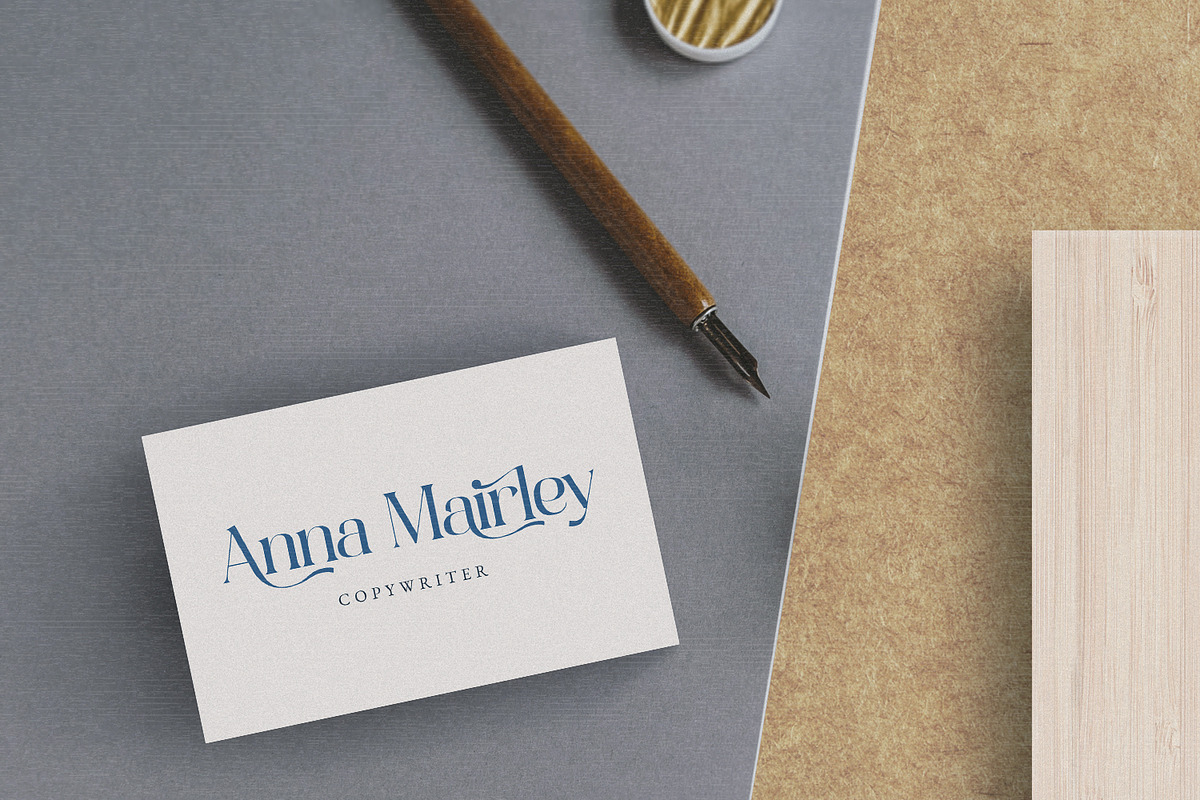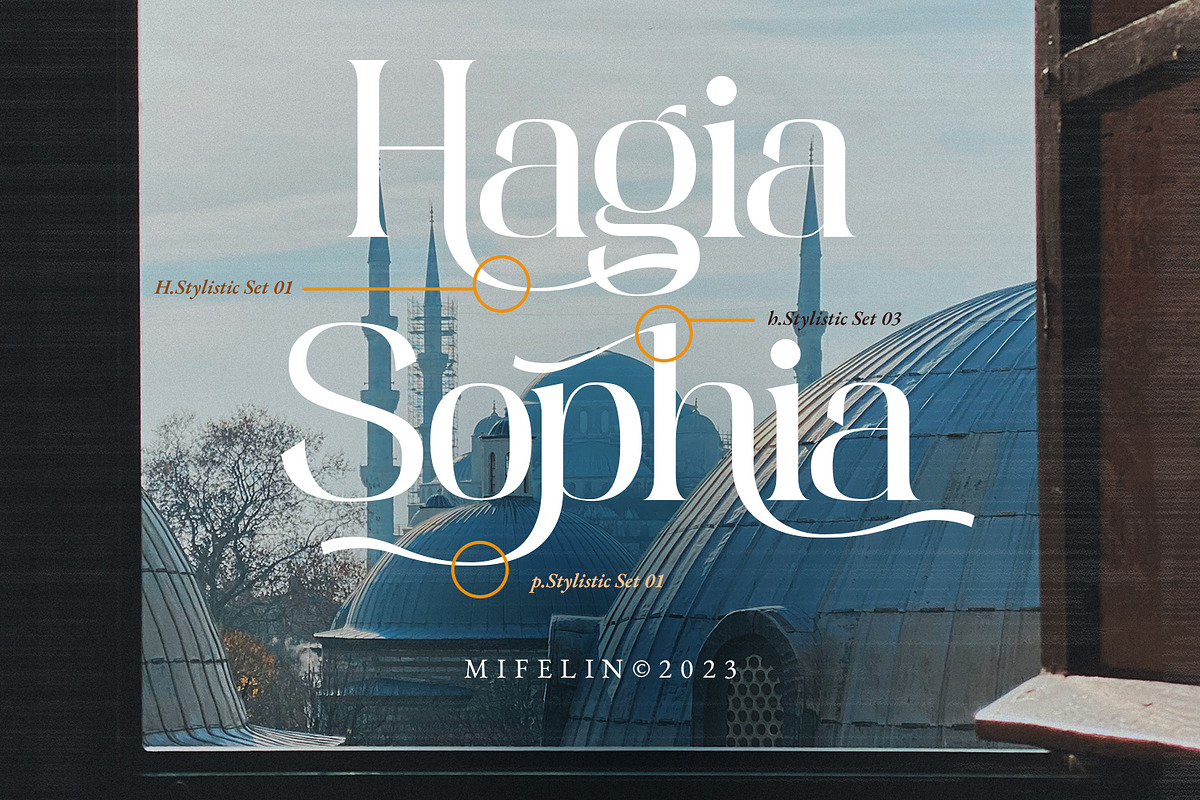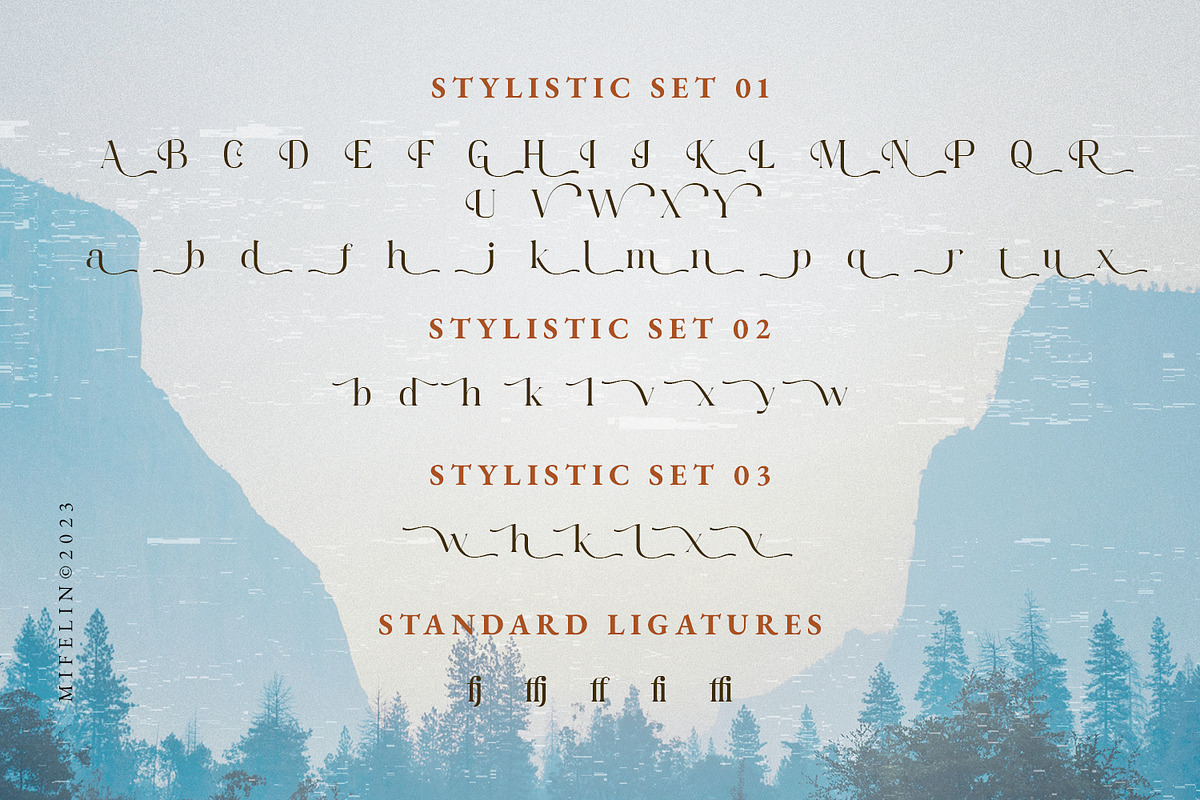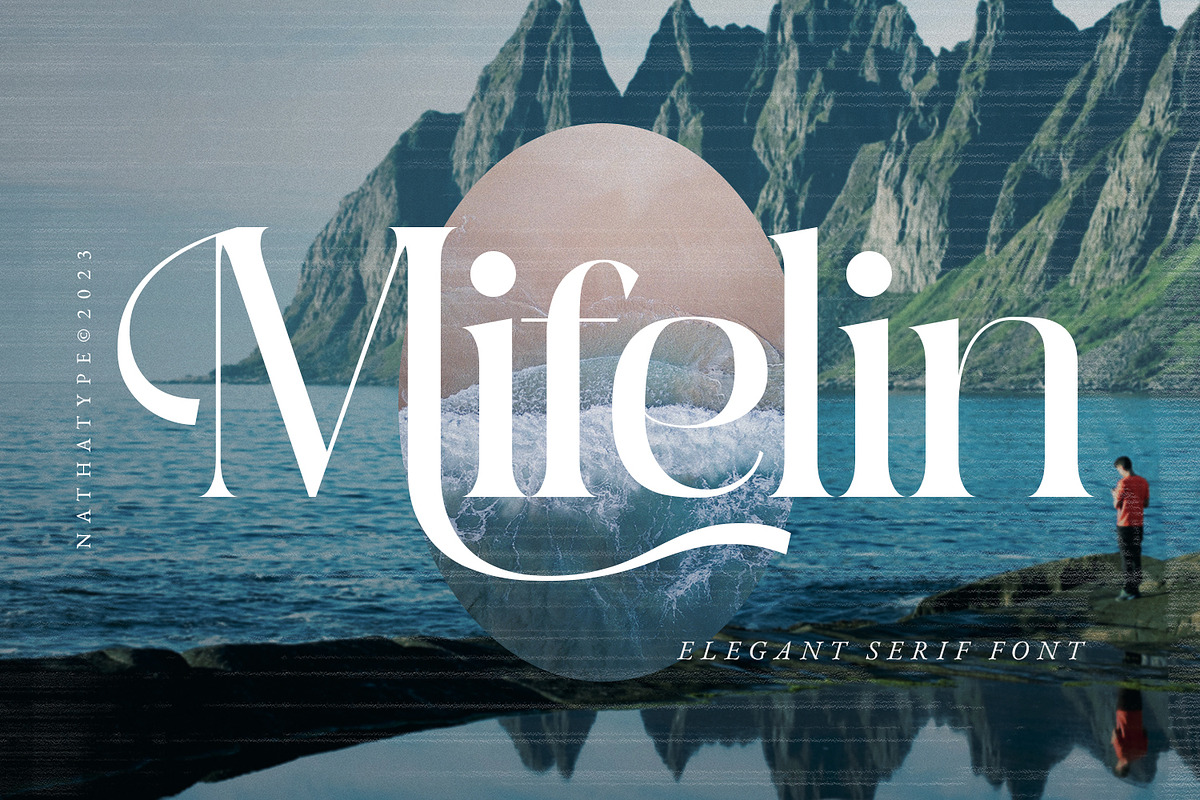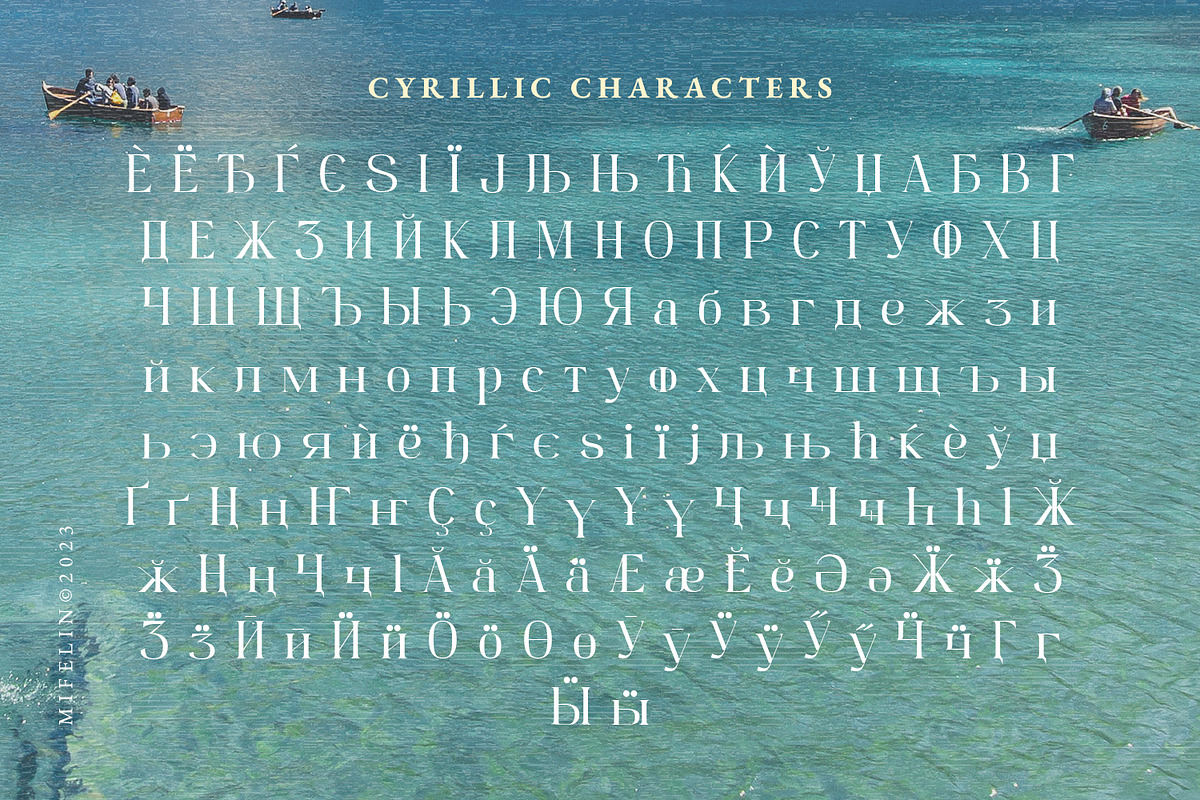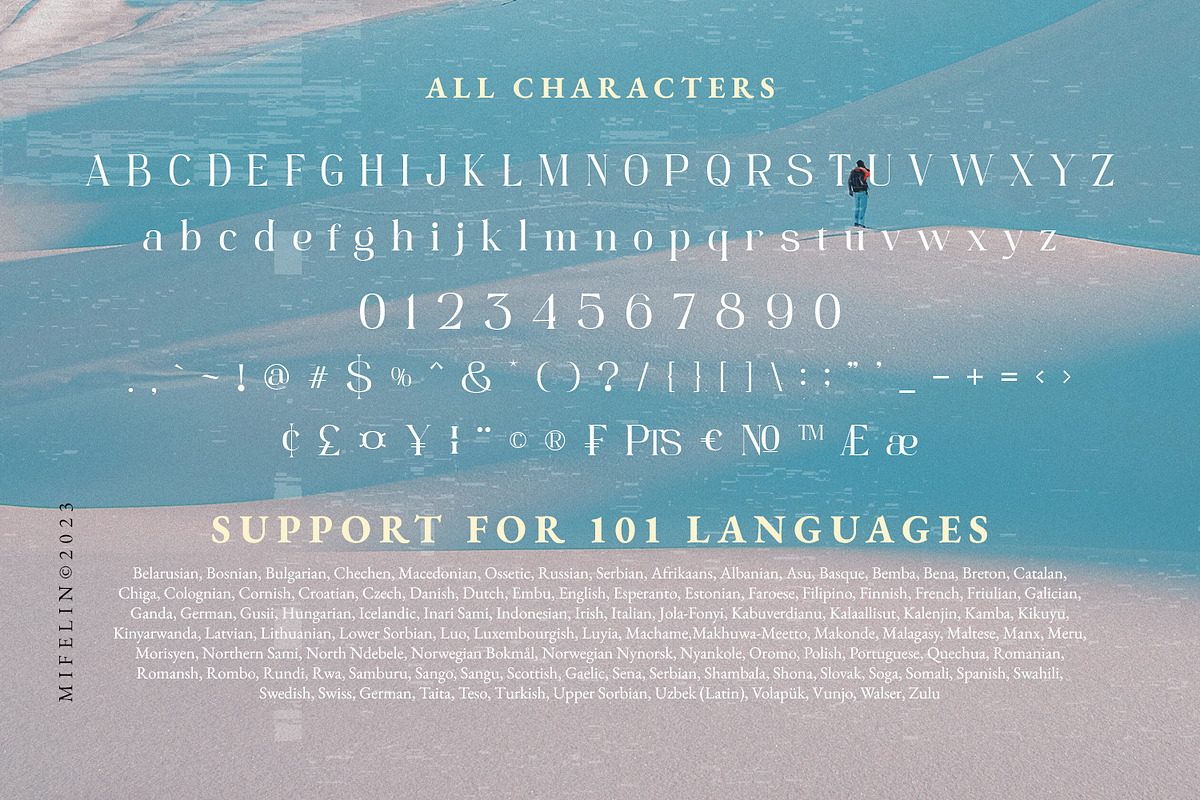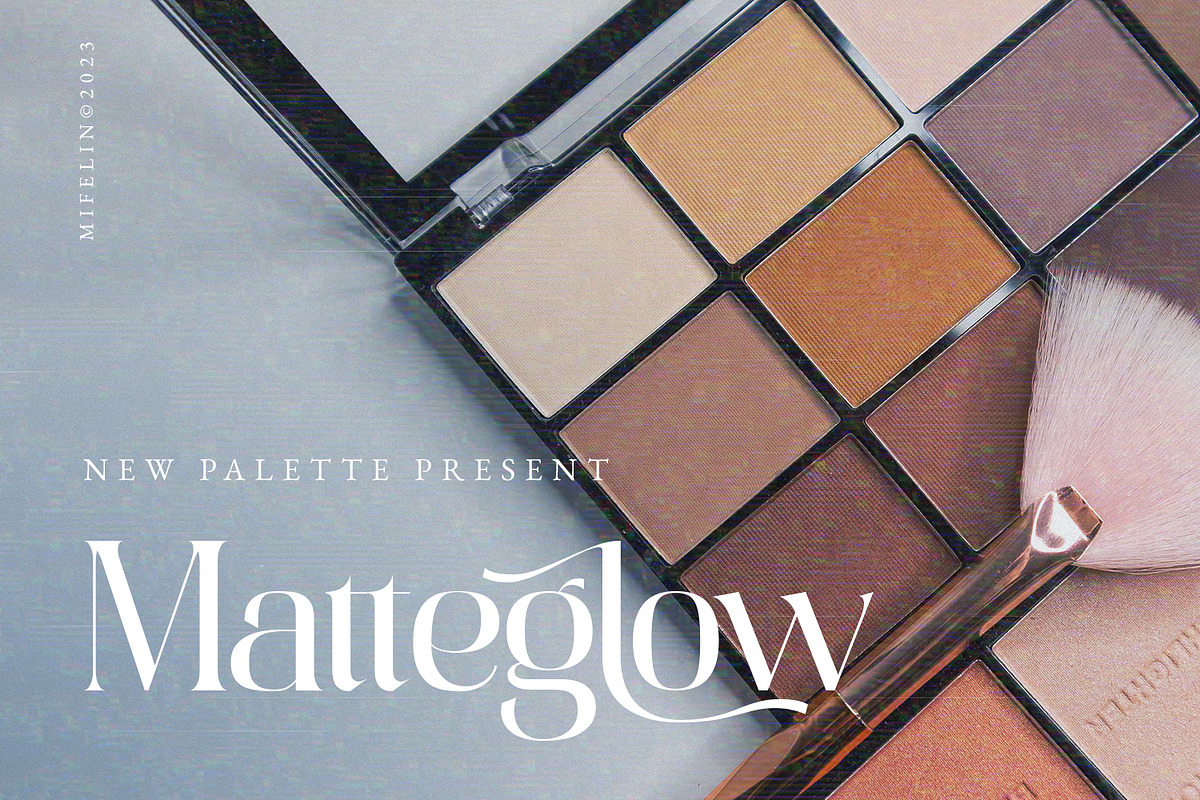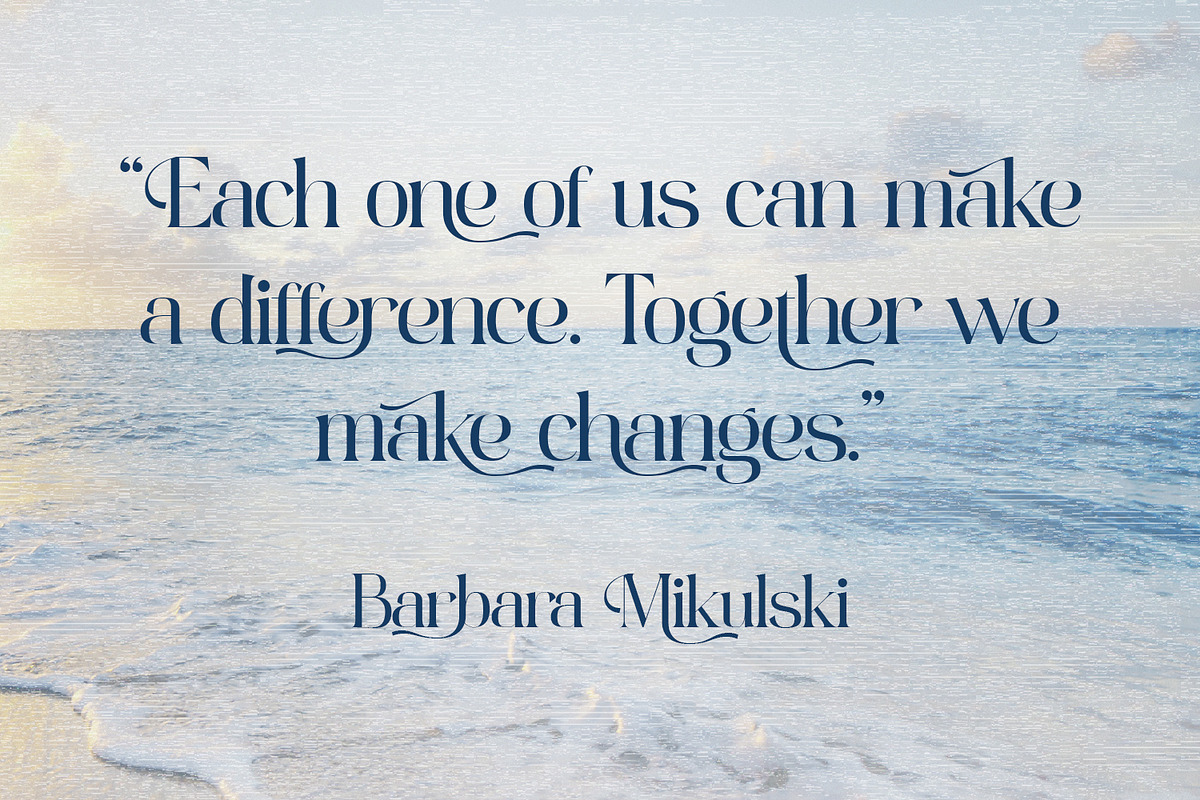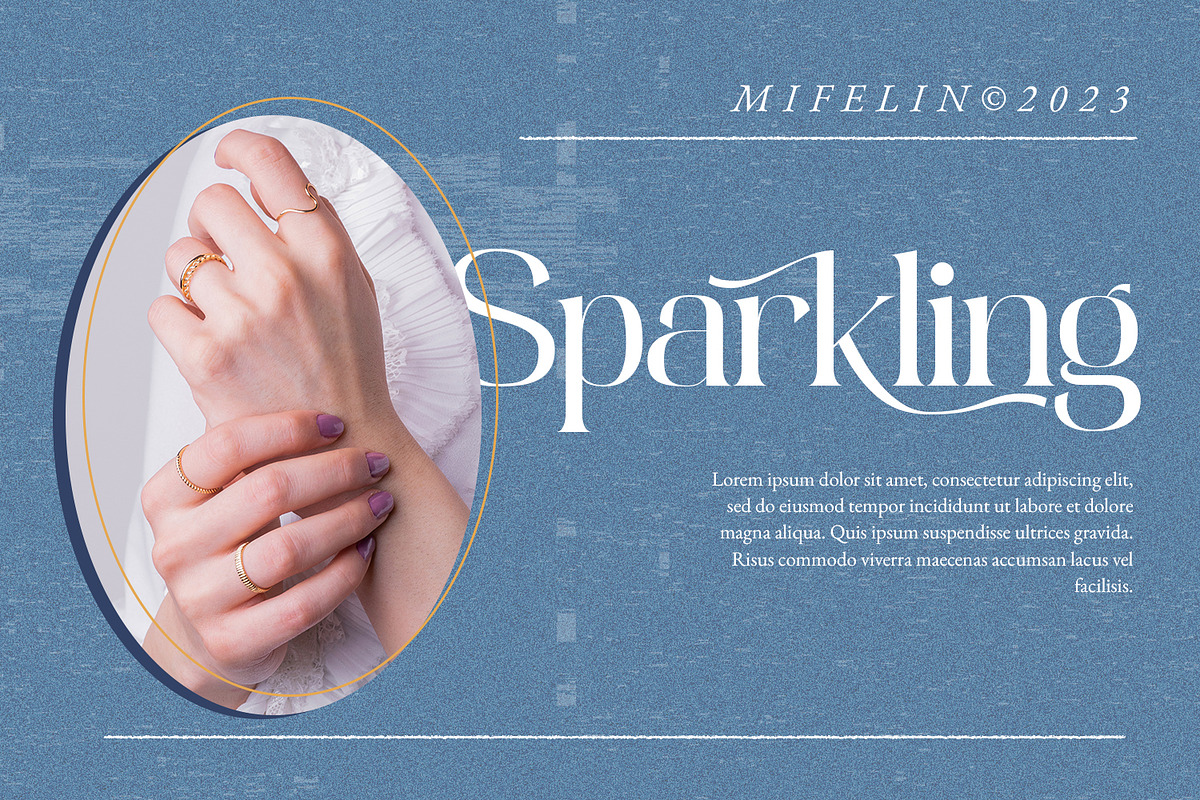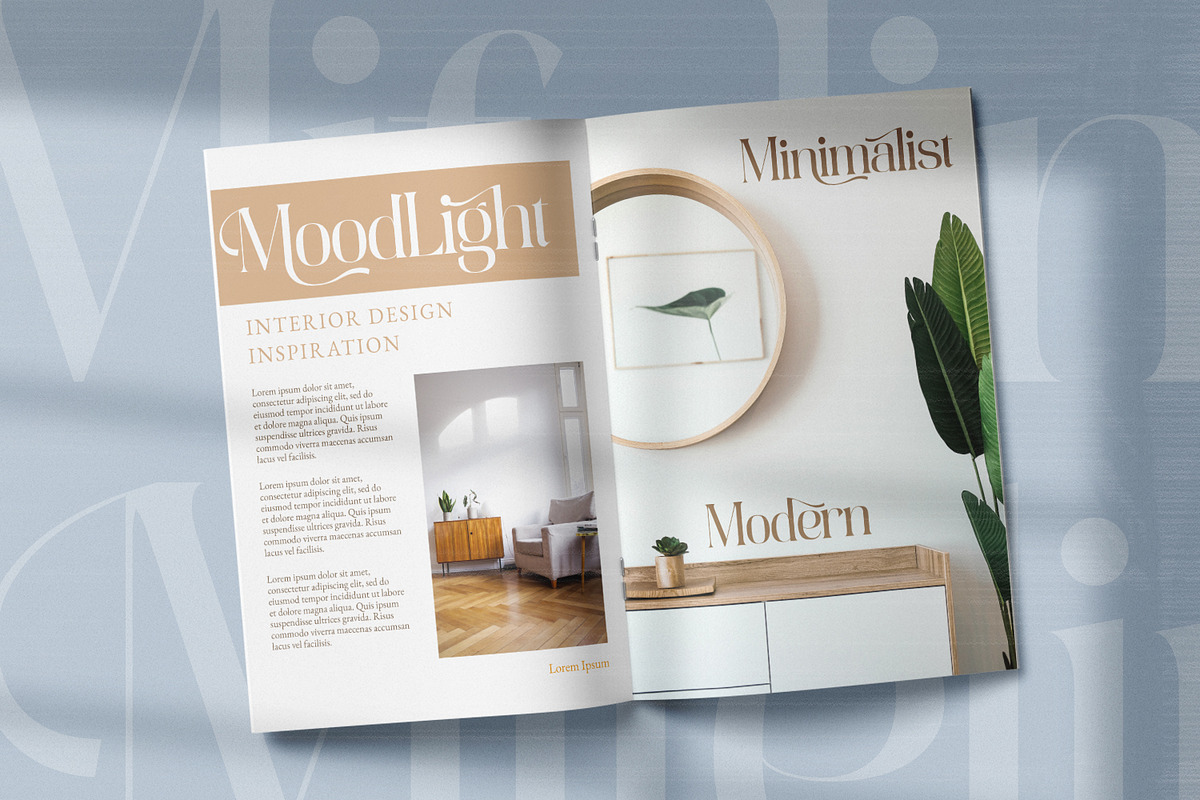
Mifelin
Mifelin is a well-defined serif font. Serifs are small ornaments that appear at the ends of the lines of letters, giving them a neater, more structured appearance. The well-defined serifs in this font create an elegant and professional impression. This serif font has a balanced and harmonious proportion of height and width. The proportions ensure that each letter looks proportional and easy to read. The line of letters in this font has a smoothness and clarity that distinguishes each character. Sharp, clear lines give off a professional and organized impression. This clarity also helps strengthen the legibility of the font in a variety of design settings. This serif font with an elegant look has a classic style that remains relevant in modern designs. Despite having strong roots in traditional typographic design, this font is able to adapt to more contemporary design contexts and give it a touch of elegance and class. Even though it has a touch of elegance, this serif font still prioritizes good readability. Each letter is carefully designed to ensure that the text remains easy to read and understand for the reader. Prominent readability is the hallmark of this font. Enjoy the various features available in this font.
- Stylistic Sets
Mifelin is suitable for any designs that require a formal and official impression. This font is can be used in the design of books, magazines, reports, formal invitations, brand identities, and other design projects that require elegance and professionalism. Find out more ways to use this font by taking a look at the font preview.